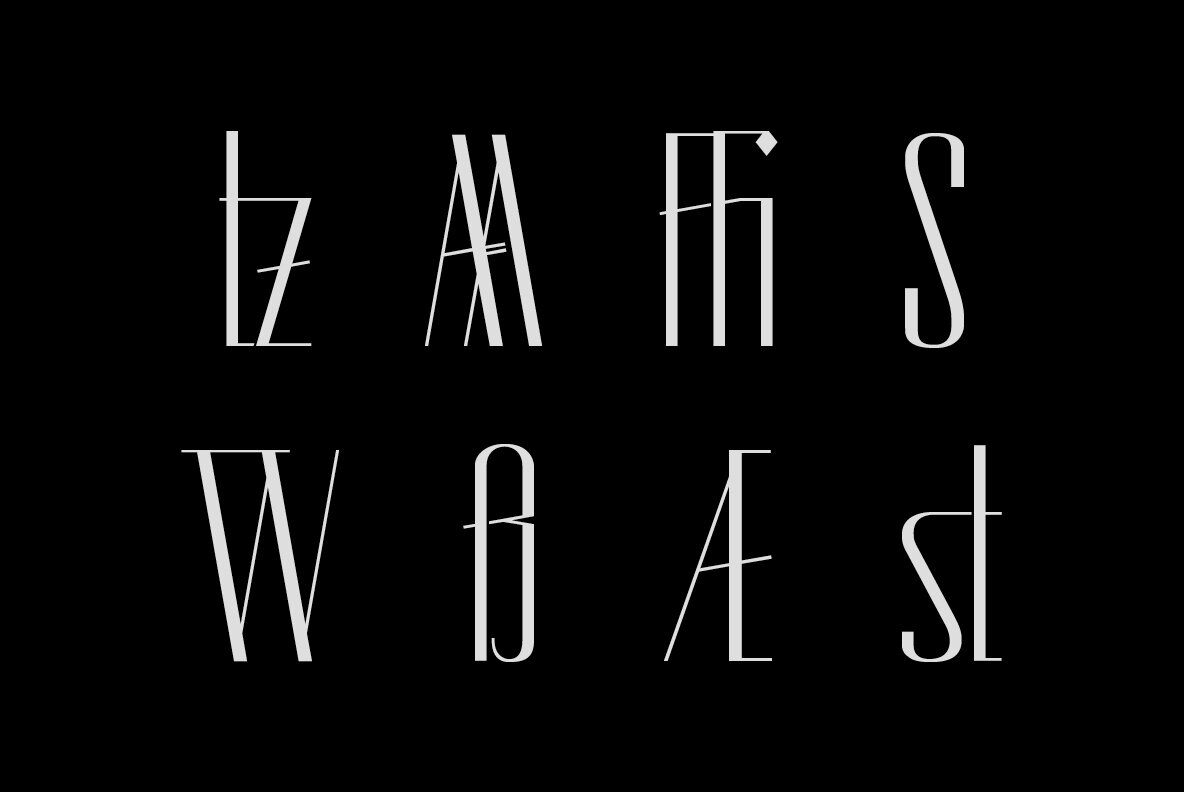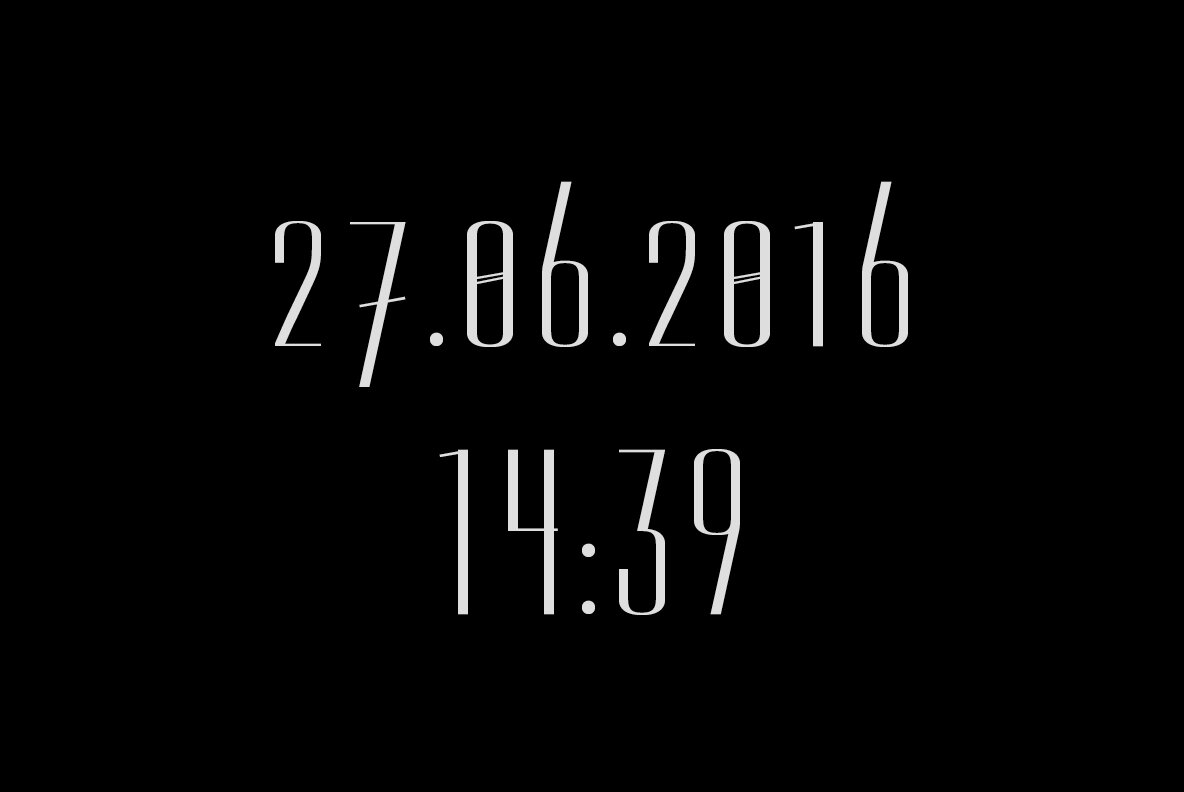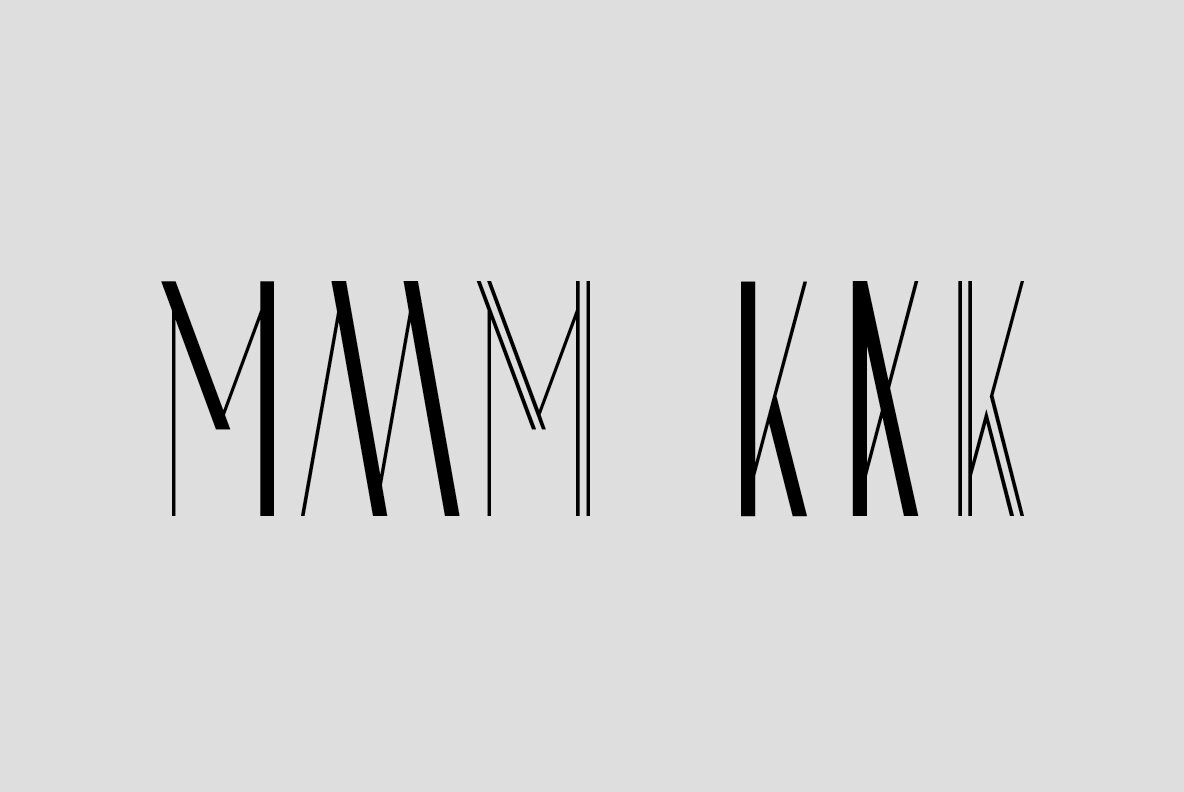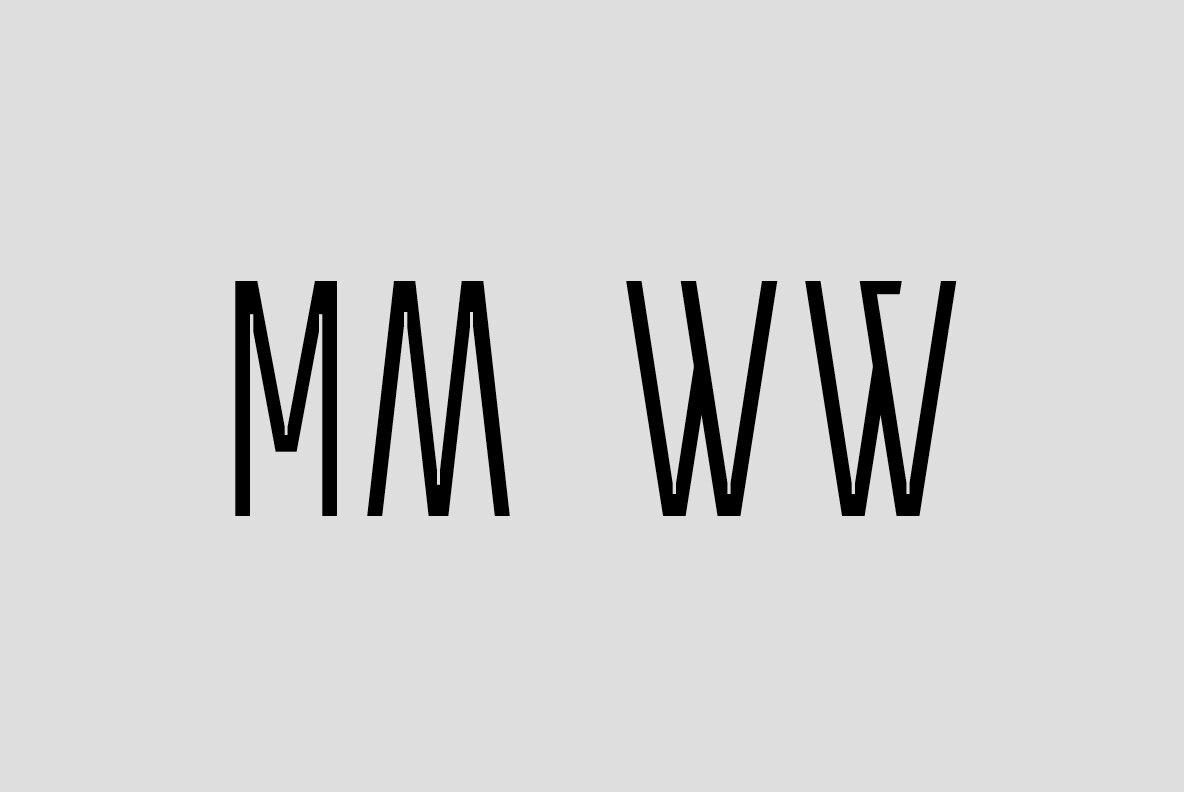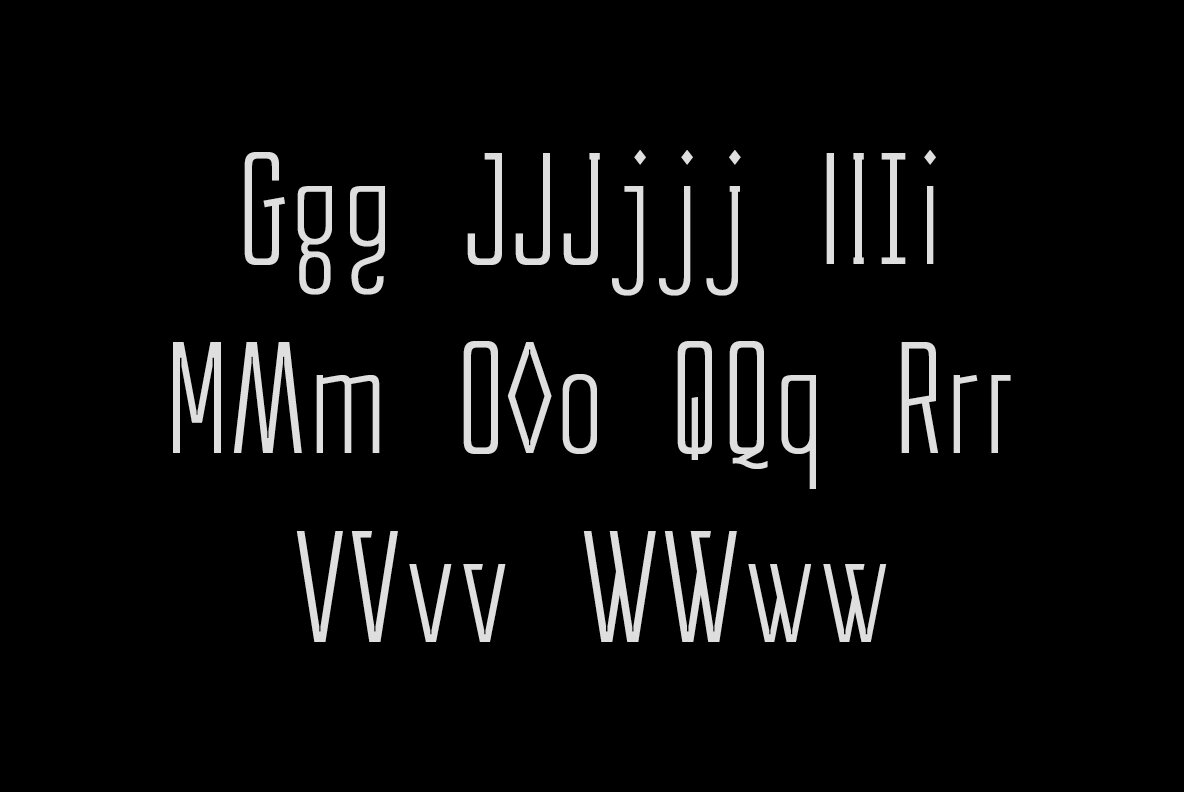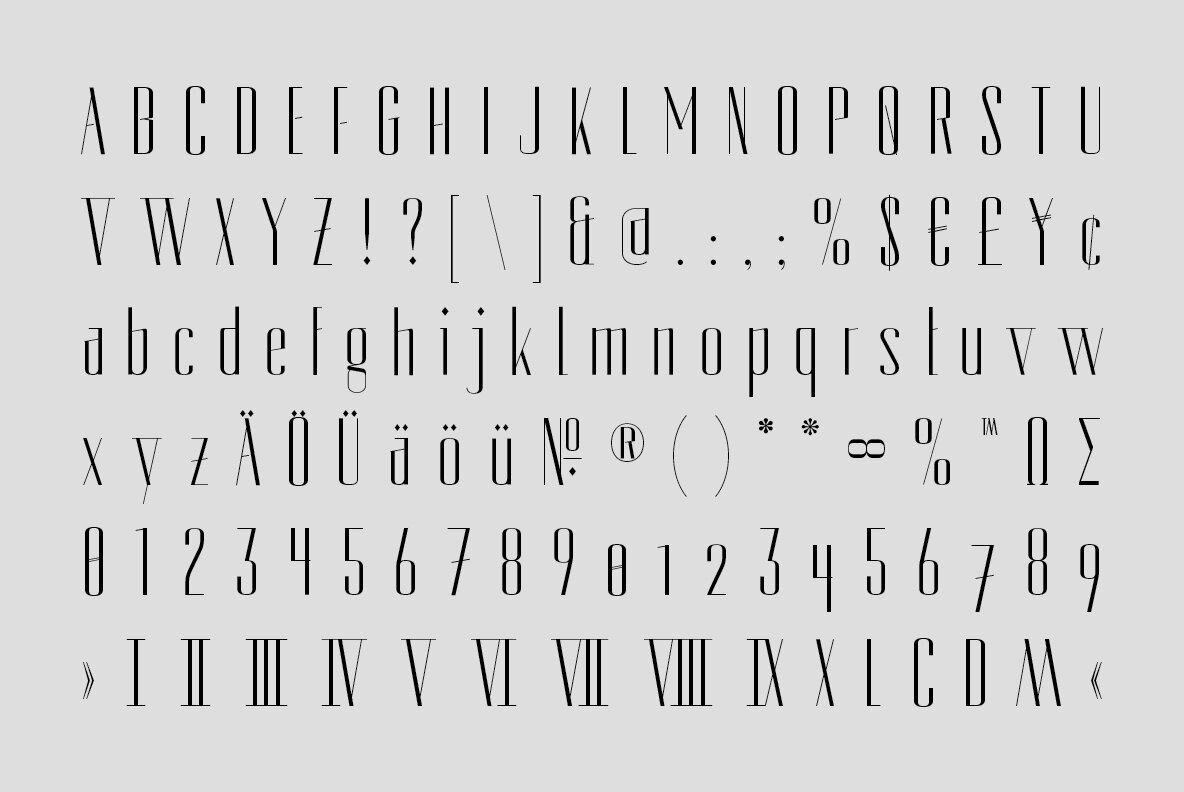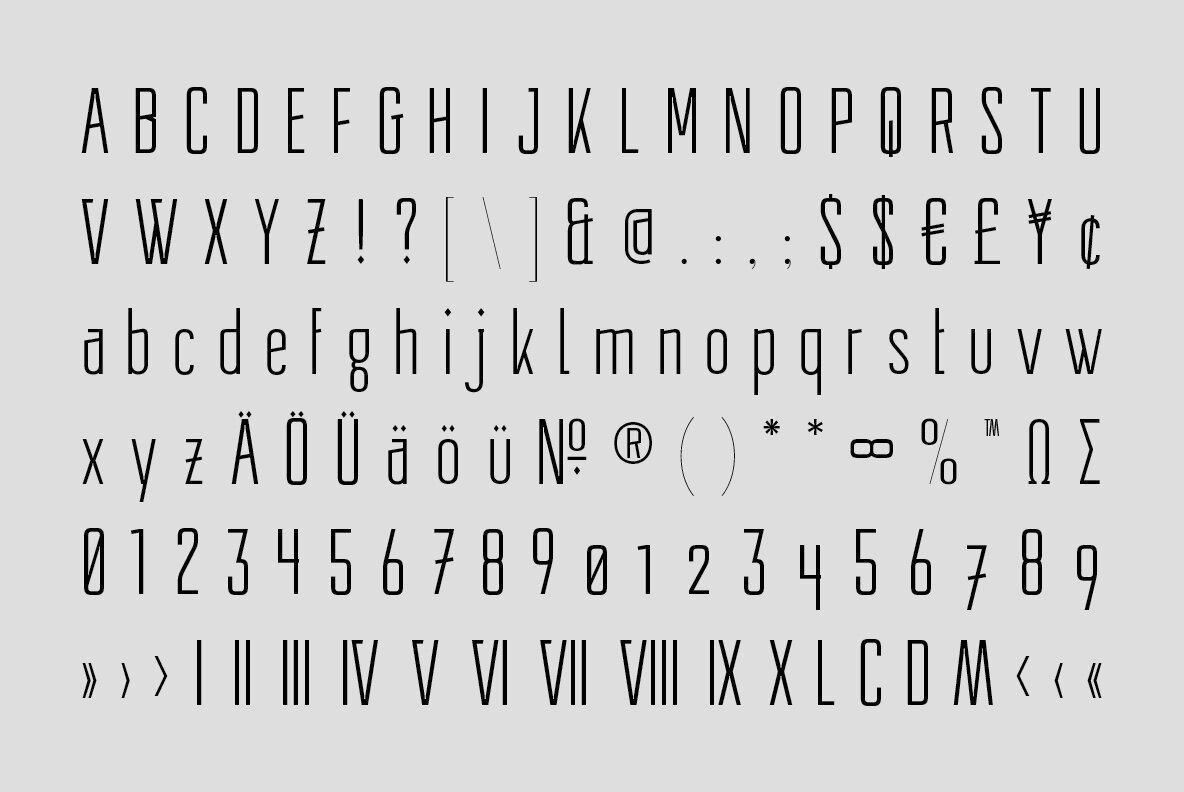
High Times Font
High Times Regular
High Times Goofy
High Times is a contemporary, clear and elegant headline typeface. This font is influenced by the artistic styles of Art Deco and Art Nouveau Jugendstil. There are the two different styles and come with various stylistic alternates and ligatures.